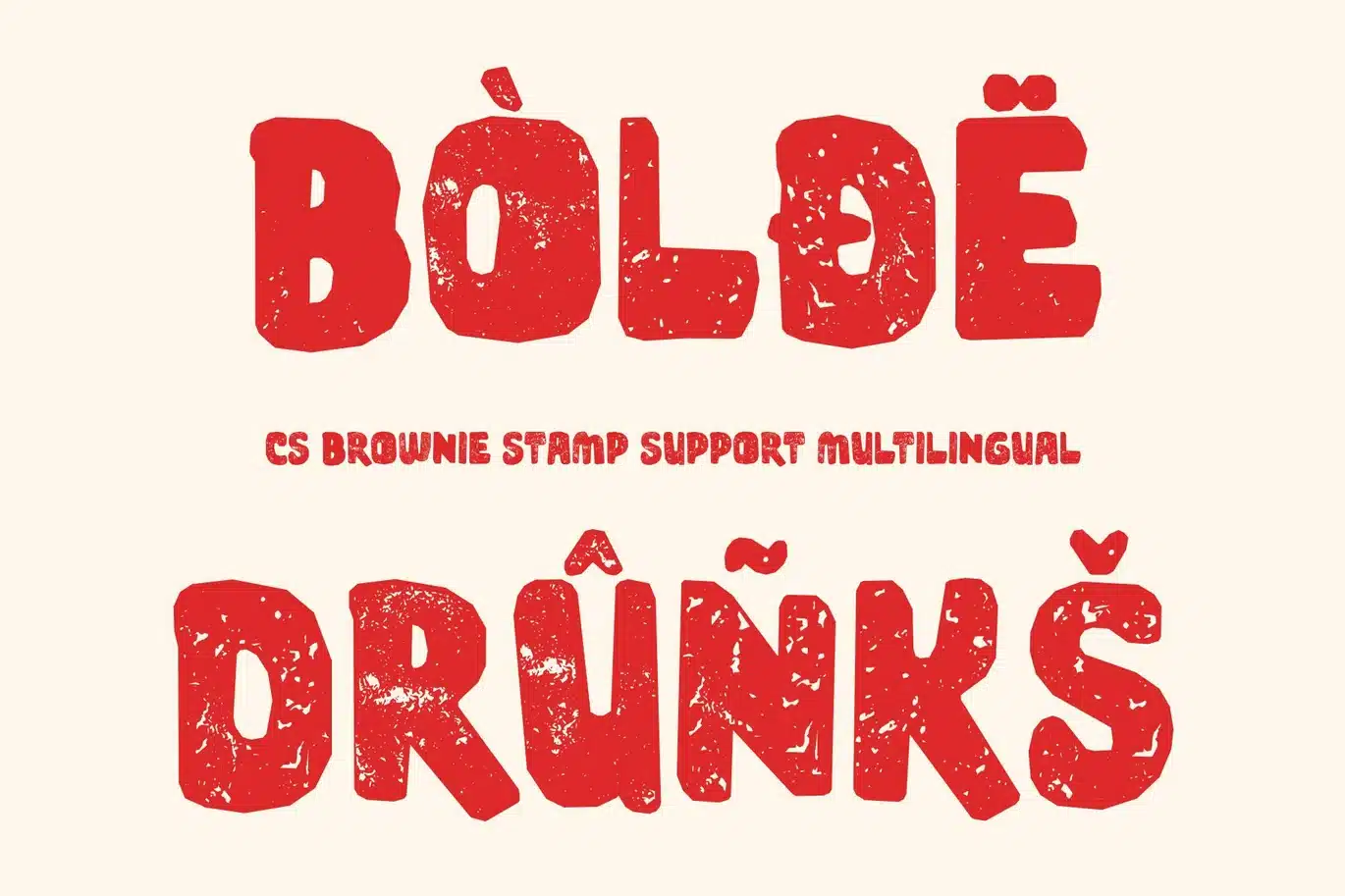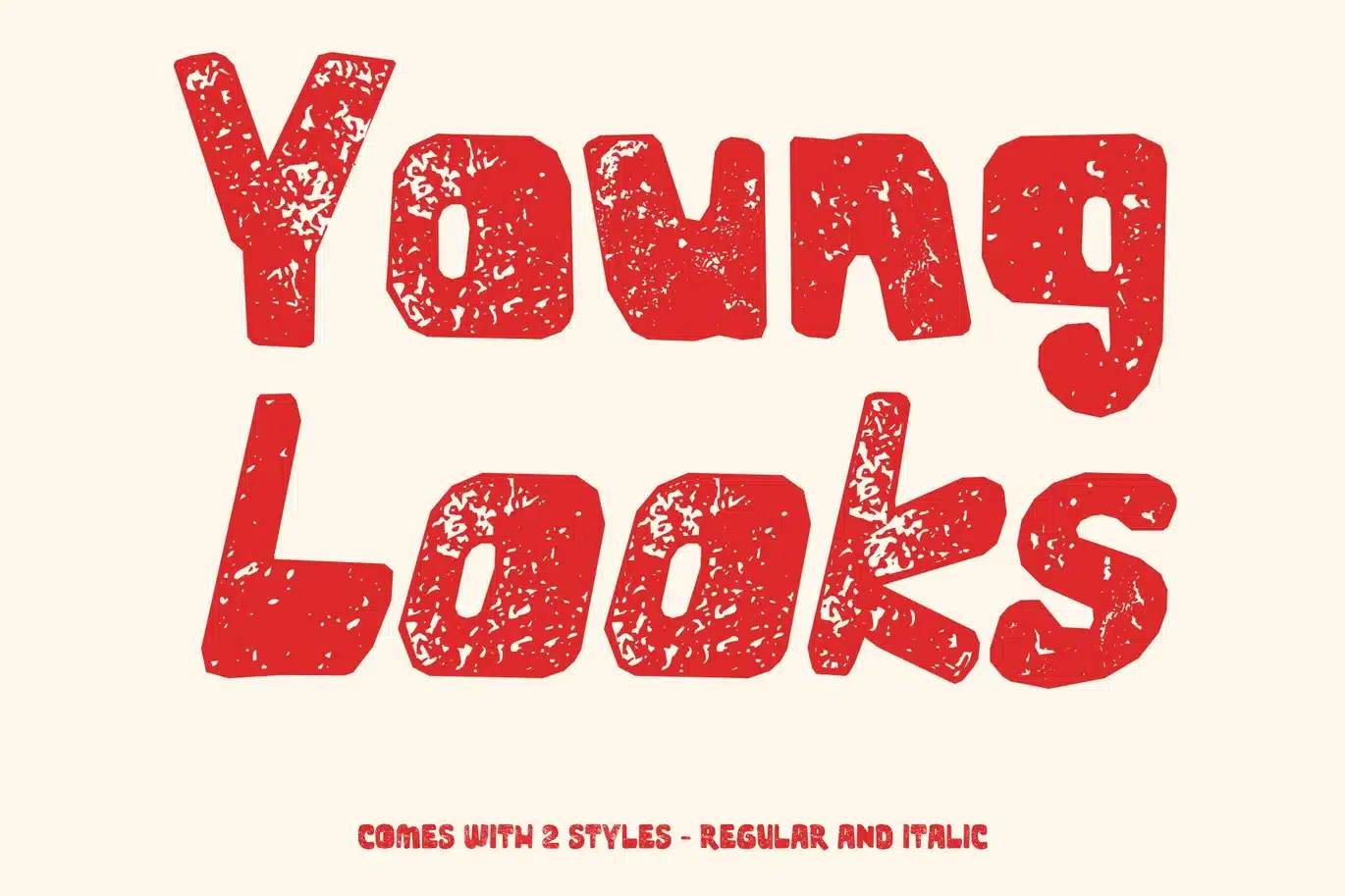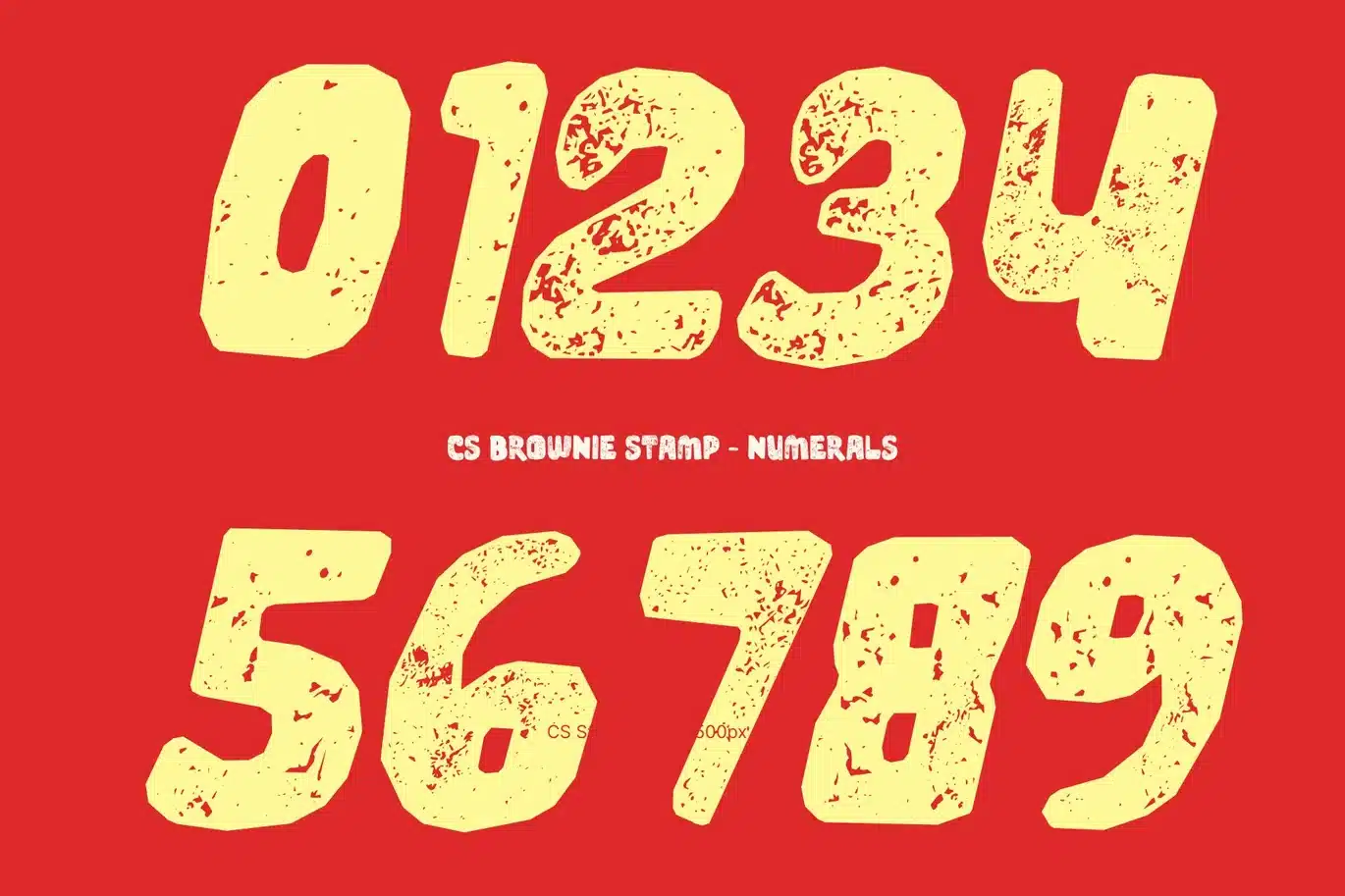
Brownie Stamp Font
CS Brownie Stamp – Funky Playfulness with Textured Charm
A Bold Expression of Joy and Whimsy
This is a modern display font that combines bold presence with cheerful personality. Its expressive letterforms radiate a funky and playful spirit, designed to instantly capture attention while spreading a friendly and uplifting energy throughout any design. The added stamped texture introduces a handcrafted character, giving the font extra depth and a lively visual feel.
Soft Shapes, Rounded Edges, and Imaginative Curves
What makes this font stand out is its whimsical letter structure, built with rounded corners, soft edges, and playful proportions. These design elements create a sense of movement and personality in every character. The stamped texture subtly enhances these shapes, adding an organic and tactile dimension that makes the typography feel even more engaging and expressive.
Perfect for Joyful, Child-Friendly Visuals
This is an excellent choice for projects that aim to feel fun, vibrant, and imaginative. From storybook titles and toy packaging to classroom posters, birthday invitations, the font adds a sense of warmth and friendliness that resonates with audiences of all ages.
Inspire Laughter, Curiosity, and Creativity
Rooted in the spirit of playful design, this font transforms typography into a joyful visual experience. Its cheerful shapes and textured character evoke a world of creativity, discovery, and storytelling making it a perfect font for designs that want to communicate happiness, curiosity, and imaginative charm.